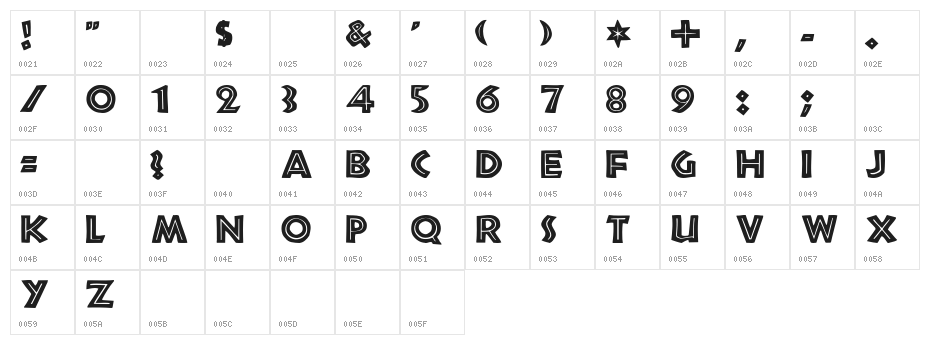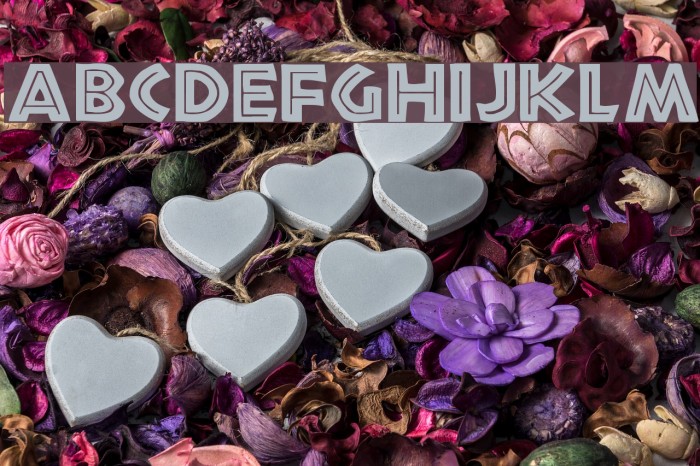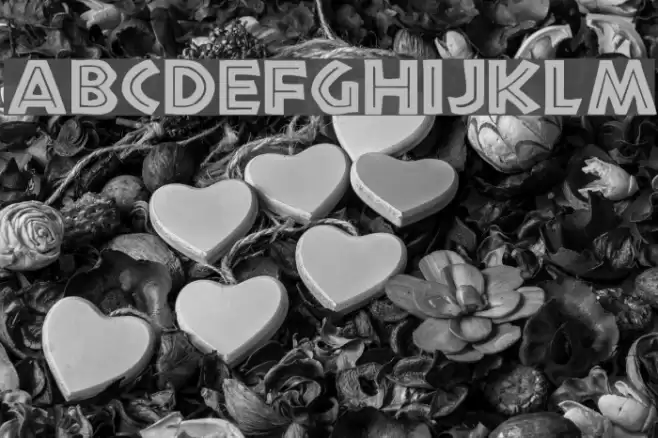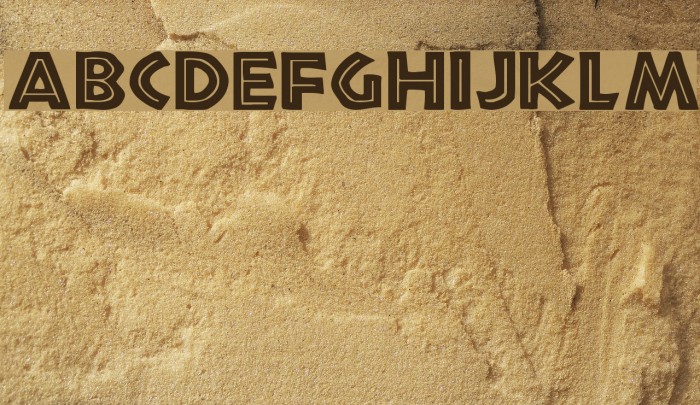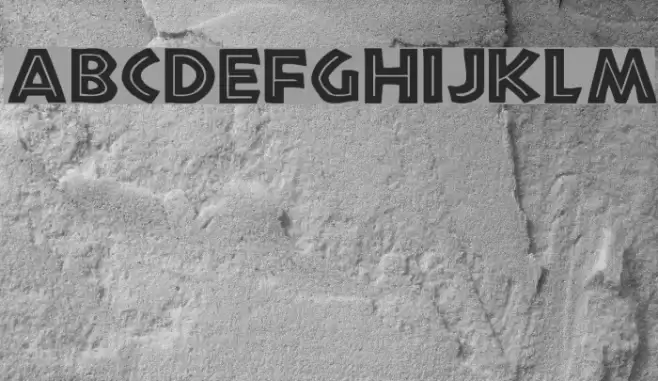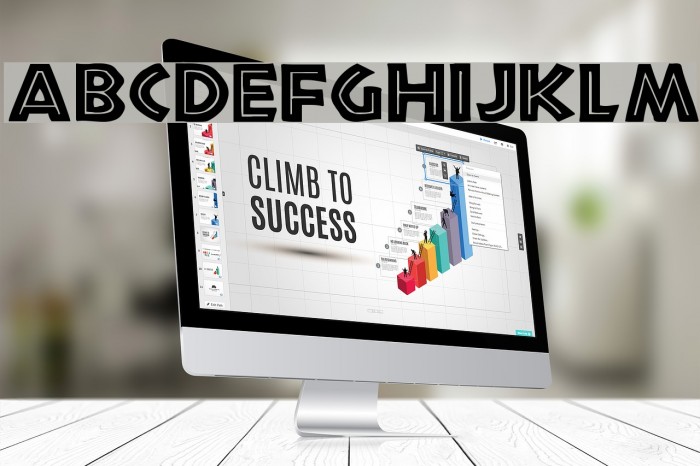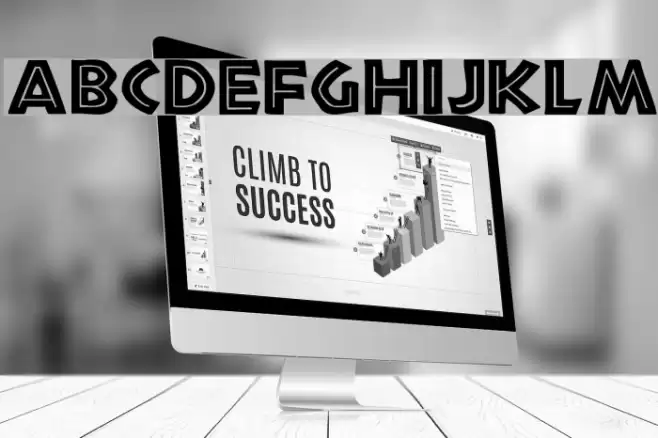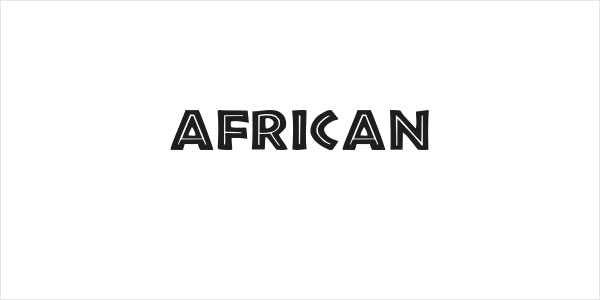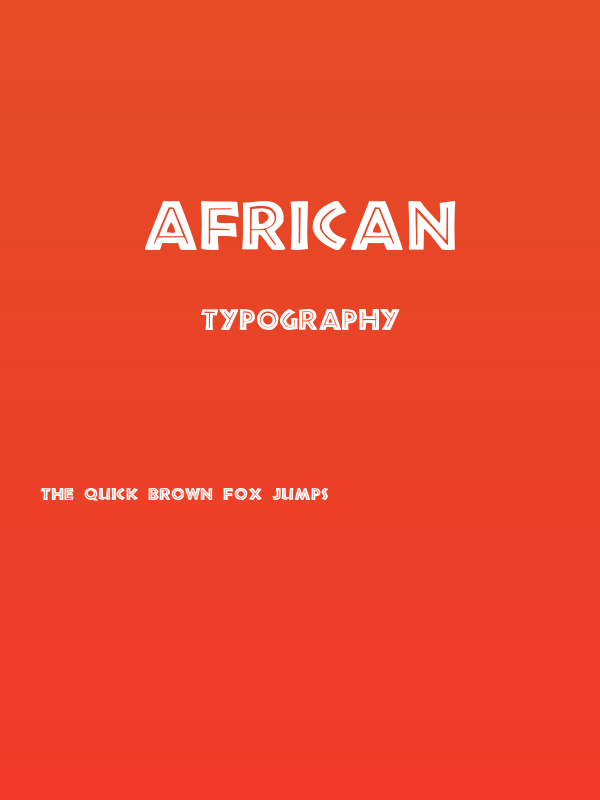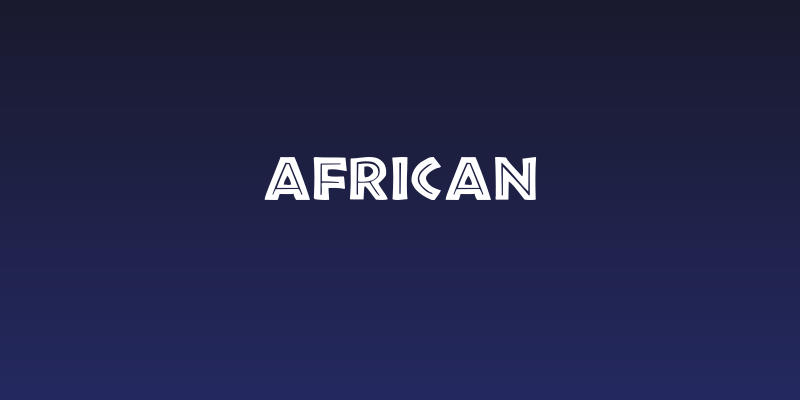
African Font
African Description
This font features a bold, geometric design with a strong presence. The characters are crafted with thick strokes and sharp angles, creating a dynamic and eye-catching appearance. The uppercase letters are particularly striking, with unique shapes that give a sense of movement and energy. The numbers and special characters maintain this bold style, ensuring consistency throughout. The font's design is reminiscent of Art Deco influences, with a modern twist that makes it suitable for contemporary projects.